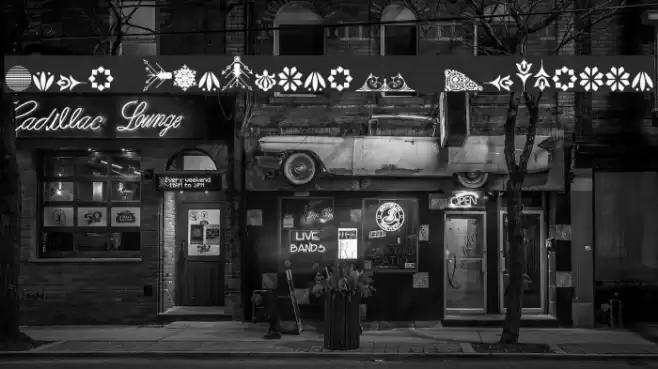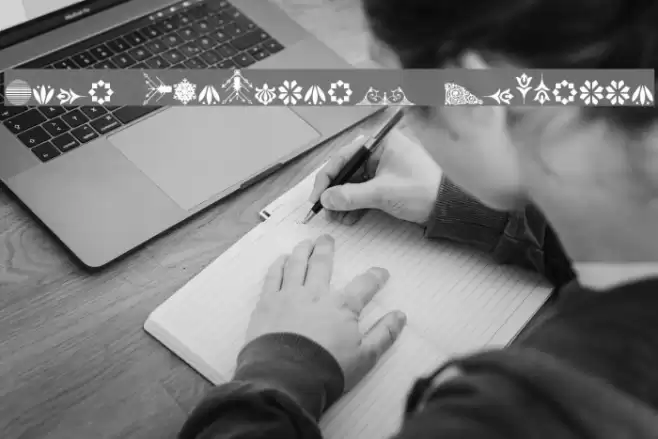
Soft Ornaments Eighteen Font
Soft Ornaments Eighteen Description
A decorative dingbat set featuring a variety of ornamental shapes, floral motifs, geometric patterns, and intricate embellishments, all rendered in solid black with high detail and contrast.
Ornamental dingbat font with diverse decorative symbols from Dingbats fonts.
- Proposed Projects: Invitations, certificates, borders, dividers, scrapbooking, decorative accents, branding elements.
- Overall Style: Decorative, Vintage
- Use Case: Borders, embellishments, icons, decorative elements.